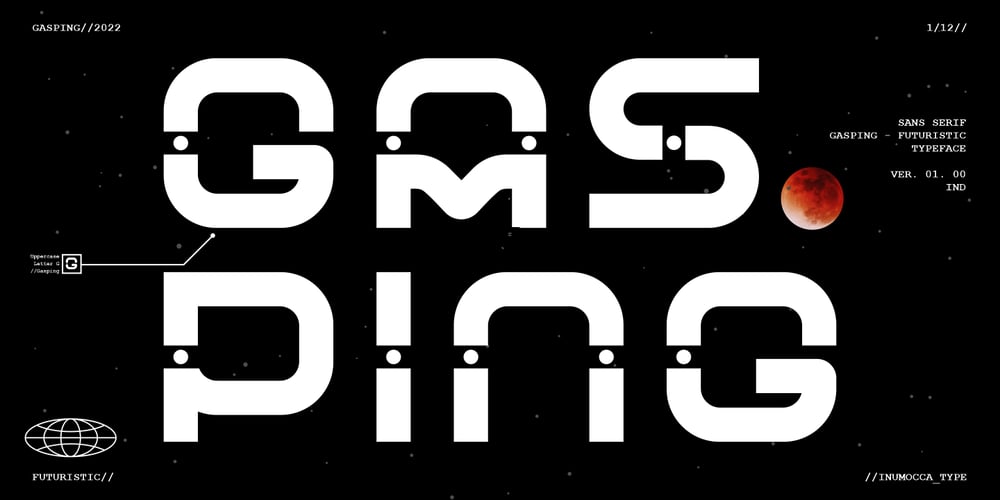
Gasping
Gasping font
Gasping Font Family was designed by Inu Mocca and published by Inumocca. Gasping contains 2 styles and family package options. Gasping Futuristic Font, Minimalist and unique Design ghlyphs.Inspiration from Modern Technology, Sci-fi Movie Poster, science and Space Theme.Really great font to covering your Project, like Lettering, Website Interface, Magazine, Branding, Poster, wedding invitations, Quotes Lettering, Logos, and more your project design.- Unique glyphs- Multilingual Characters- UPPERCASE- Lowercase- Numeric- Symbol- Punctuation Character- Stylistic Alternatesinumocca_type